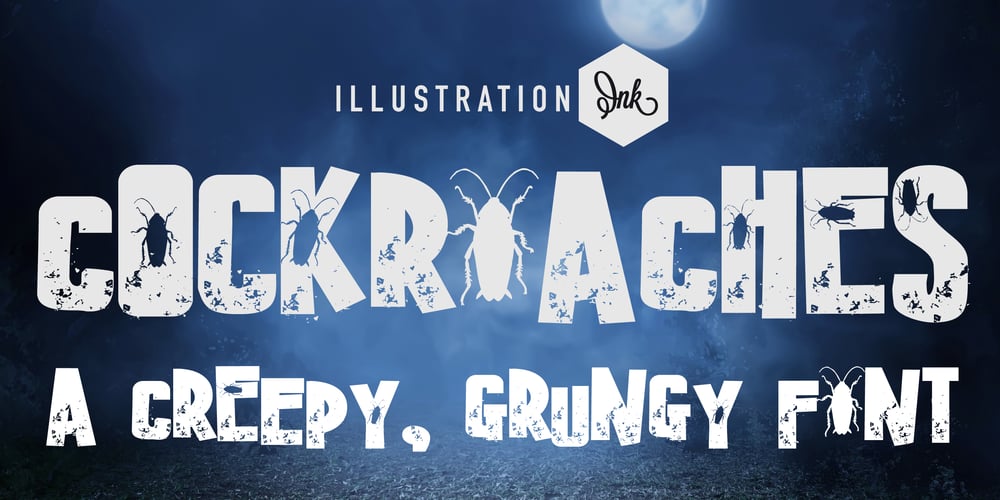
ZP Cockroaches
ZP Cockroaches font
ZP Cockroaches Font Family was designed by Illustration Ink and published by Illustration Ink. ZP Cockroaches contains 1 styles and family package options. This hand-crafted, sans serif font features grunge, creep, and cockroaches throughout.A hand-crafted font is a font that is designed to look like it was written by hand. It is often used for invitations, greeting cards, and other items. Handwritten fonts can be either formal or informal, and they can be used for a variety of purposes.Some of the characteristics of handwritten fonts include: The letters are not perfectly uniform in size or shape. There may be slight variations in the spacing between letters and words. The font may have a “wiggly” or “squiggly” appearance. The font may be difficult to read at small sizes. Handwritten fonts can be a great way to add a casual touch to your designs. They can also be used to create a sense of nostalgia or whimsy. However, it is important to choose a handwritten font that is appropriate for the project you are working on. A formal handwritten font may not be appropriate for a casual invitation, while an informal handwritten font may not be appropriate for a corporate document.